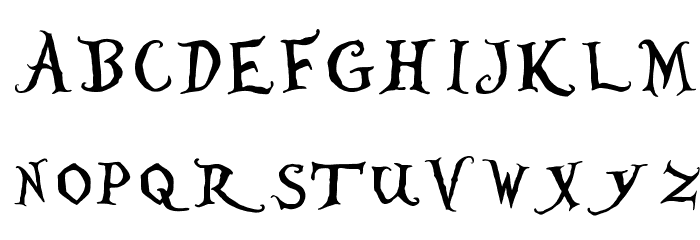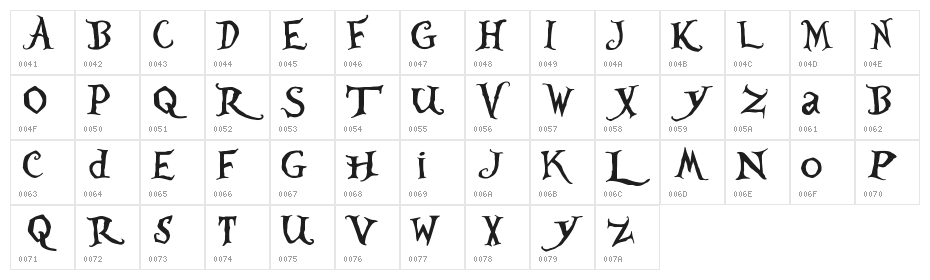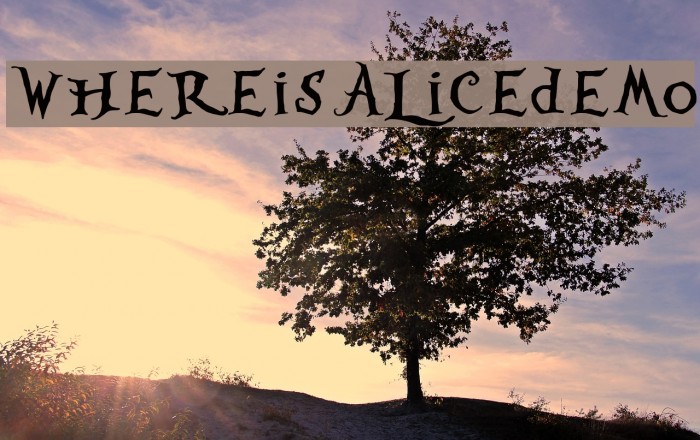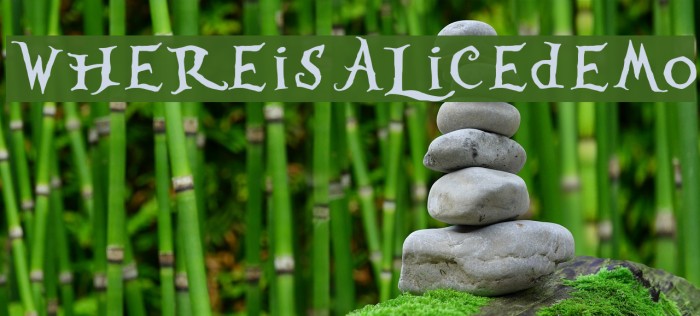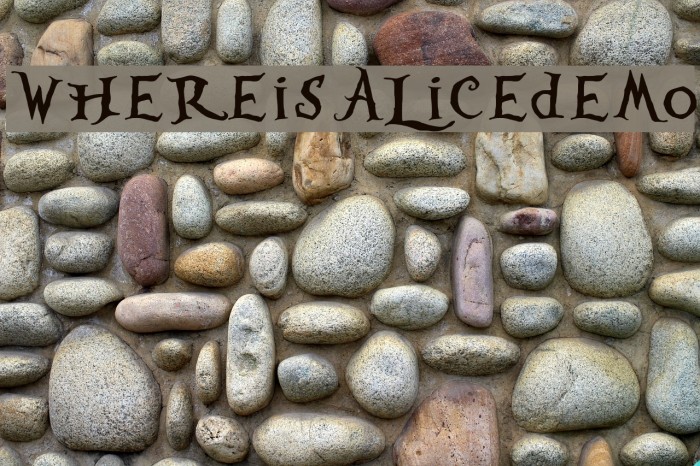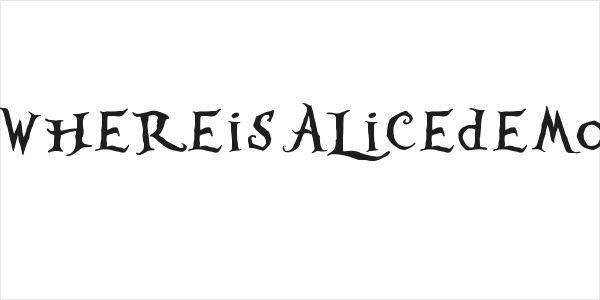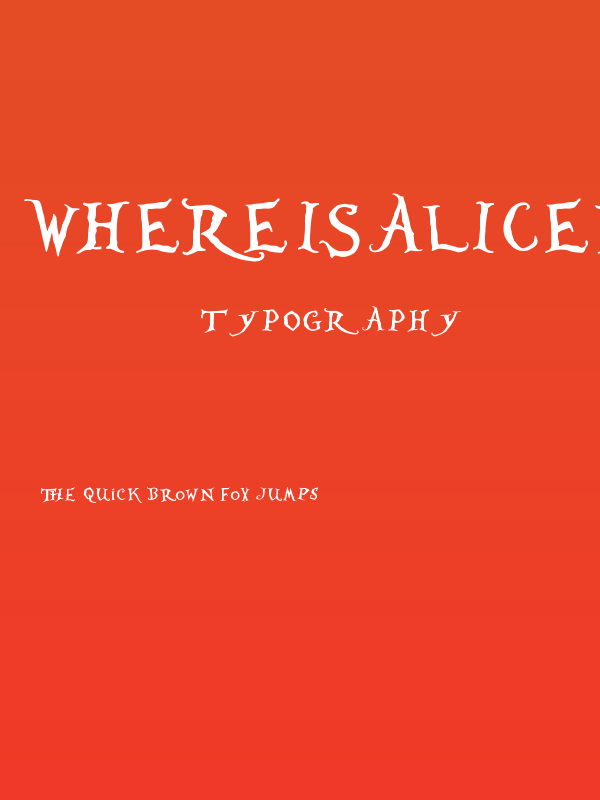
WhereisAlicedemo Font
WhereisAlicedemo Description
This font features a whimsical and slightly gothic style, characterized by its playful yet sharp serifs and uneven stroke widths. The letters have a hand-drawn appearance, with exaggerated curves and unique flourishes that give it a distinctive, almost storybook-like quality. The uppercase letters are bold and commanding, while the lowercase letters maintain a consistent style with slightly more subtle embellishments. The numbers and special characters follow the same design principles, ensuring a cohesive look across all characters. This font is perfect for projects that require a touch of fantasy or a vintage aesthetic.
| Overall Style | Vintage, Decorative |
| Proposed Projects | Ideal for fantasy book covers, themed event invitations, or vintage-style branding. |